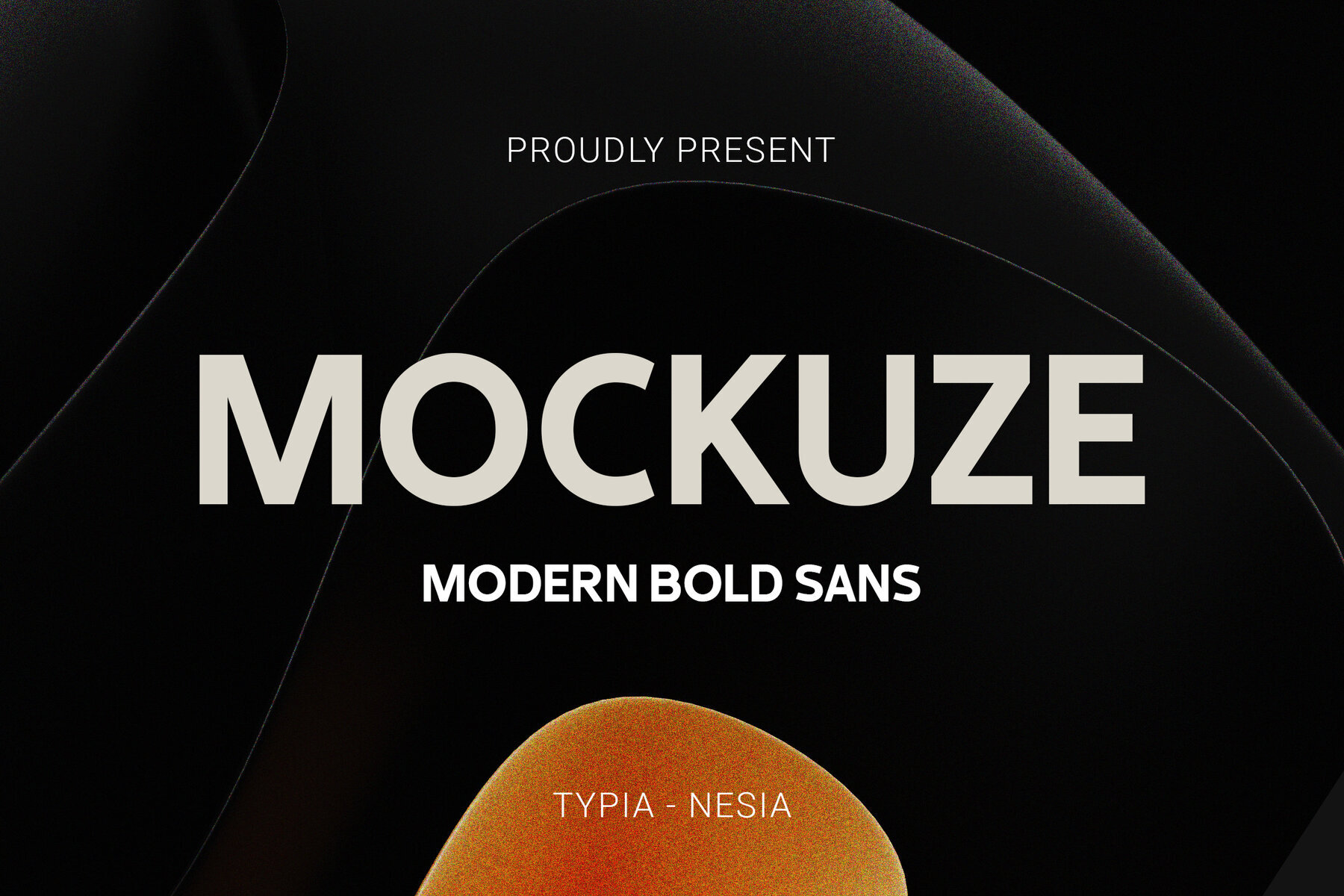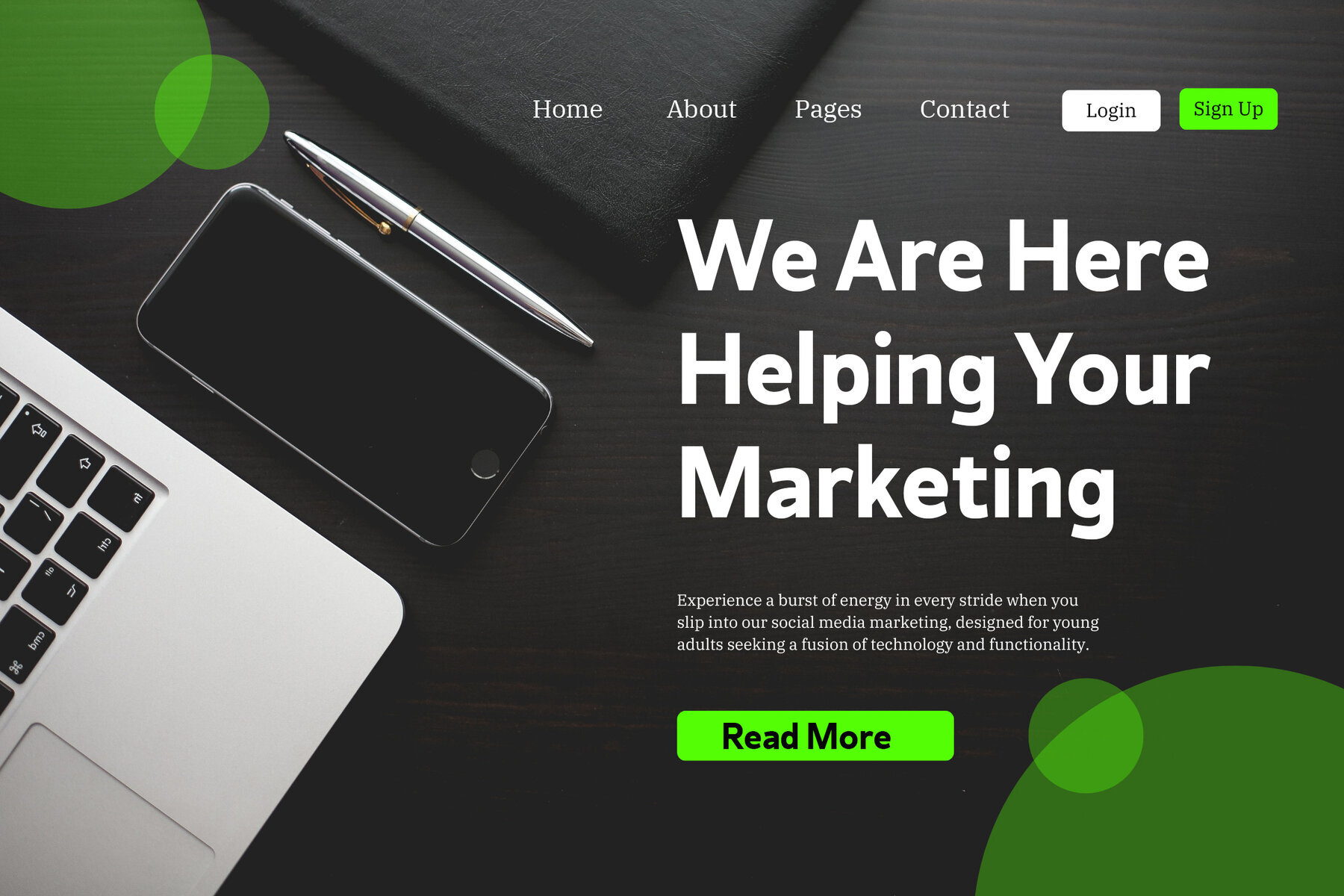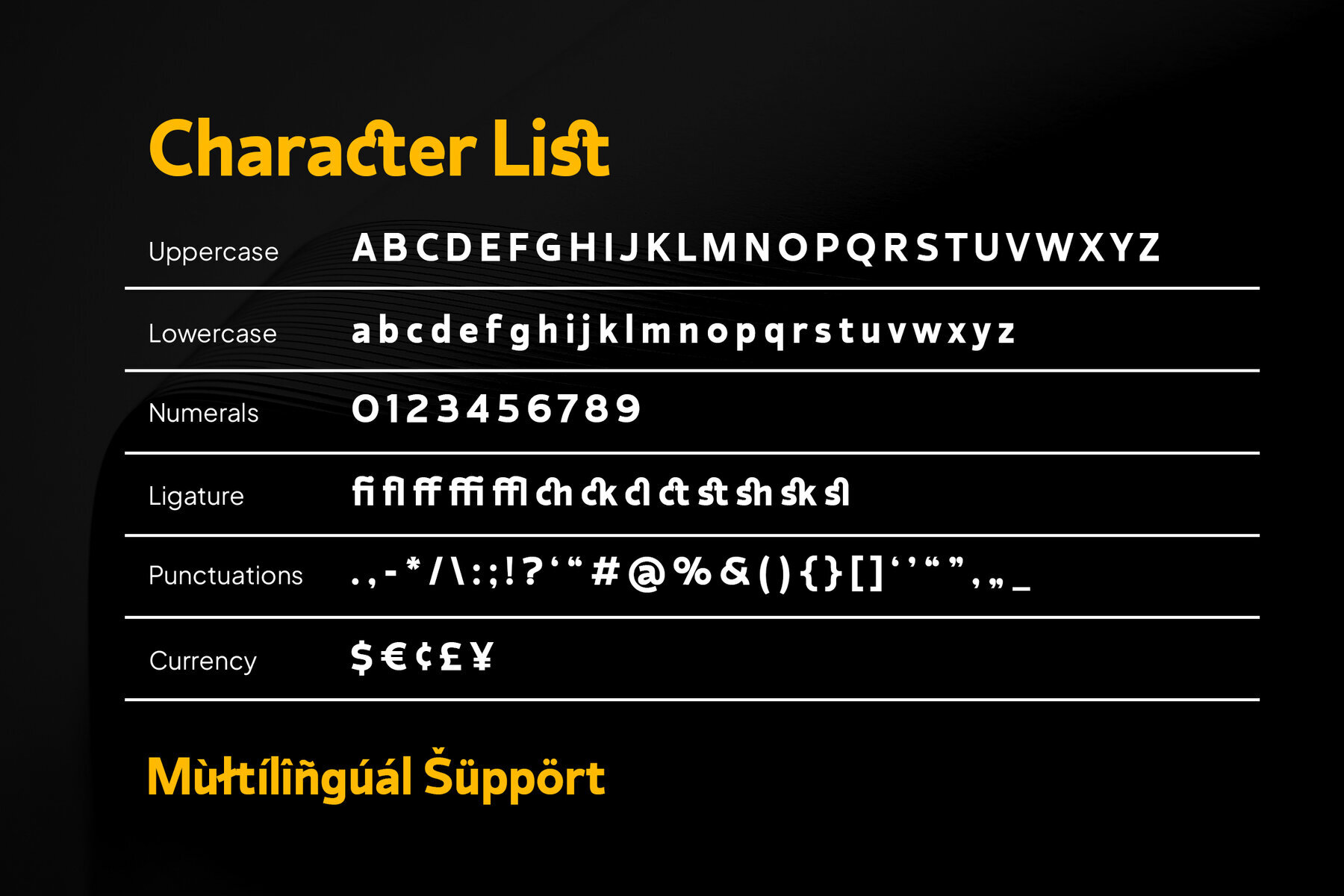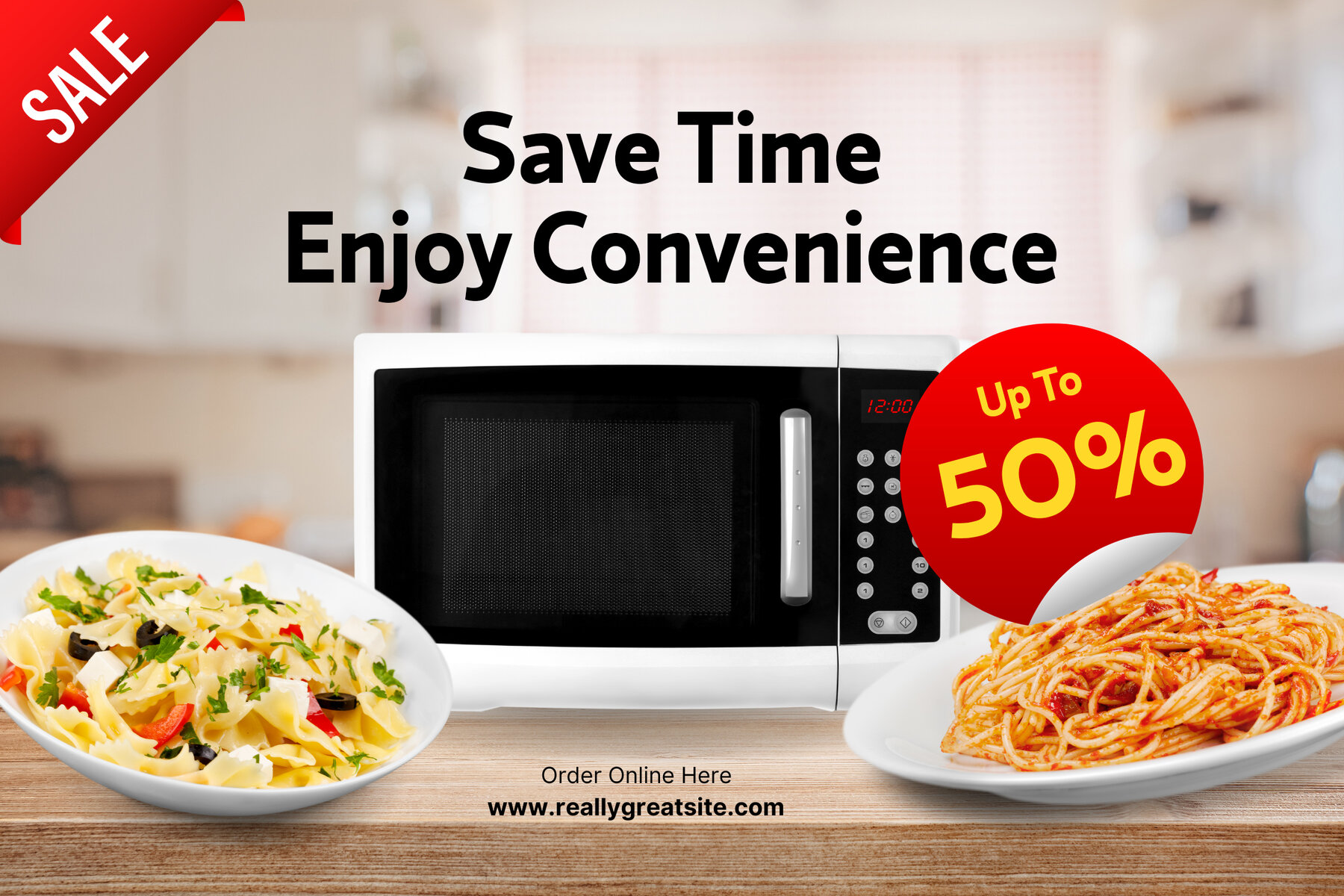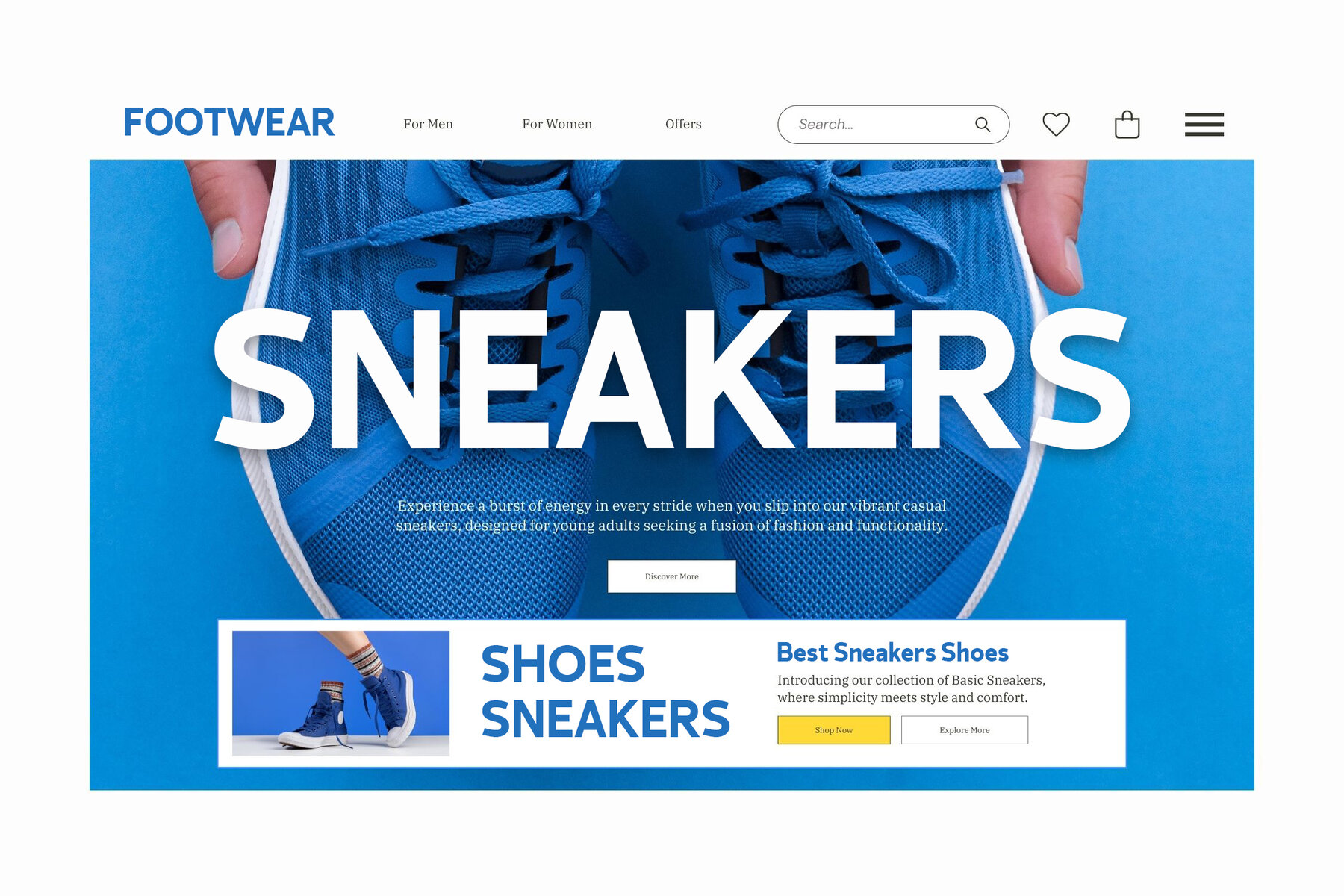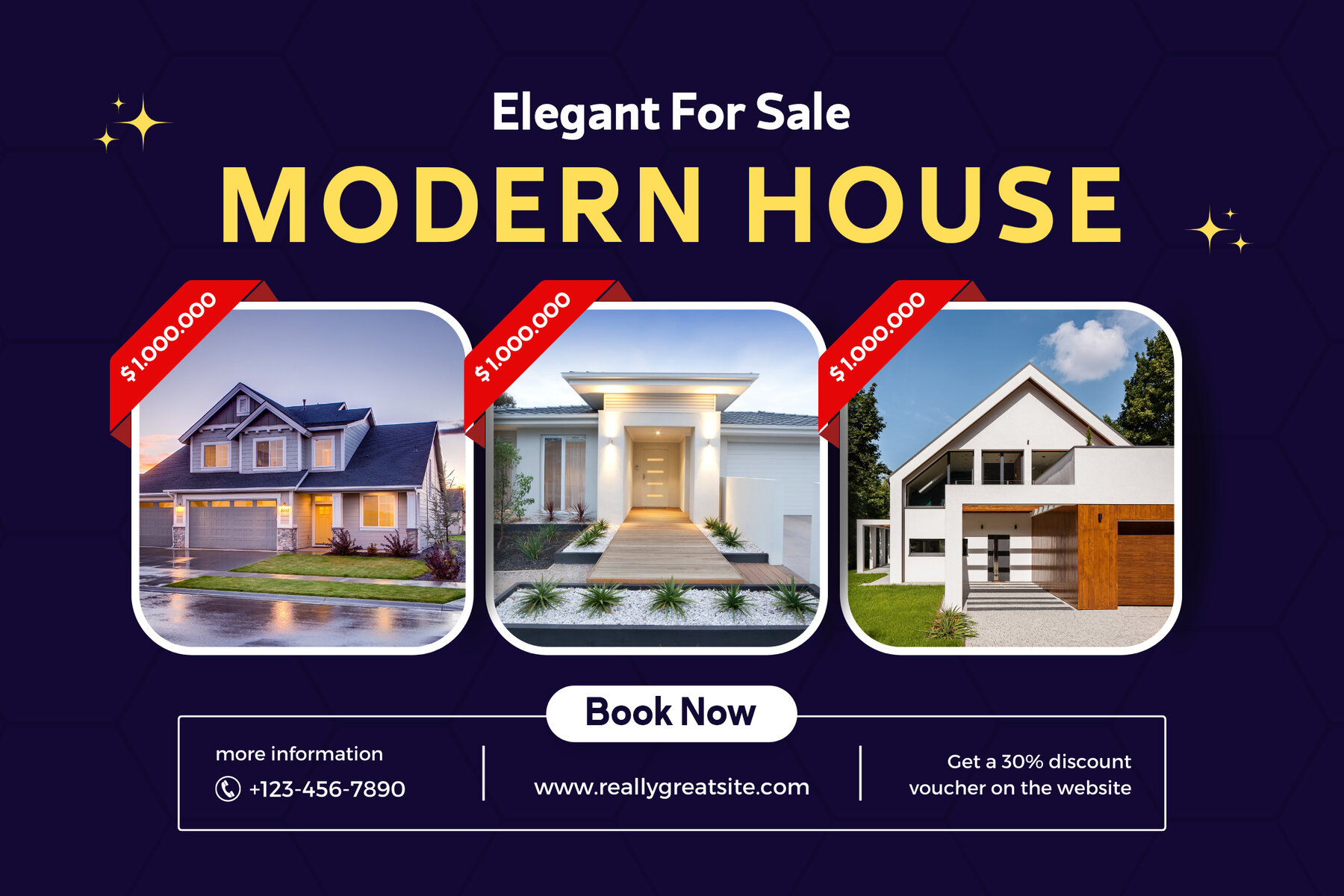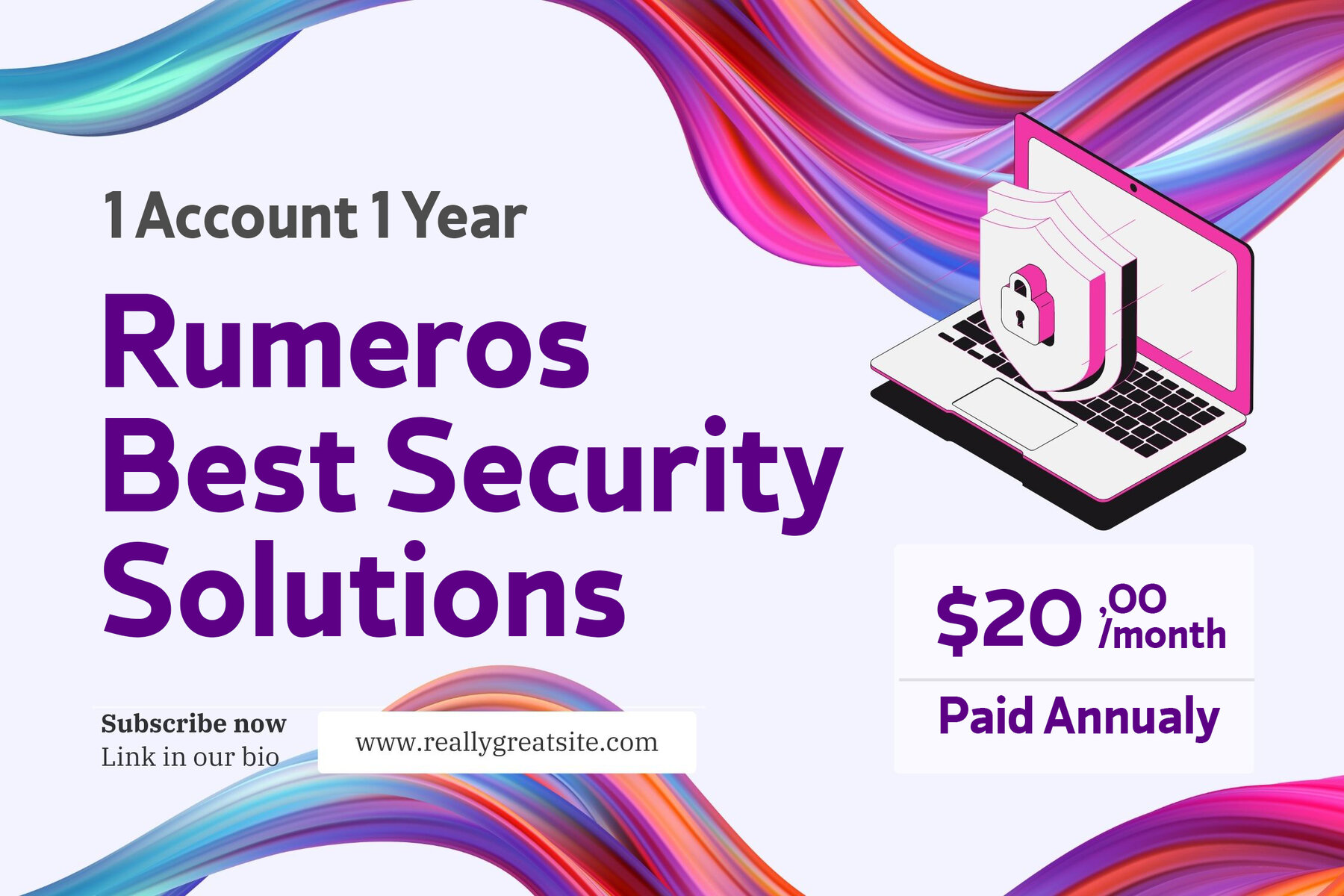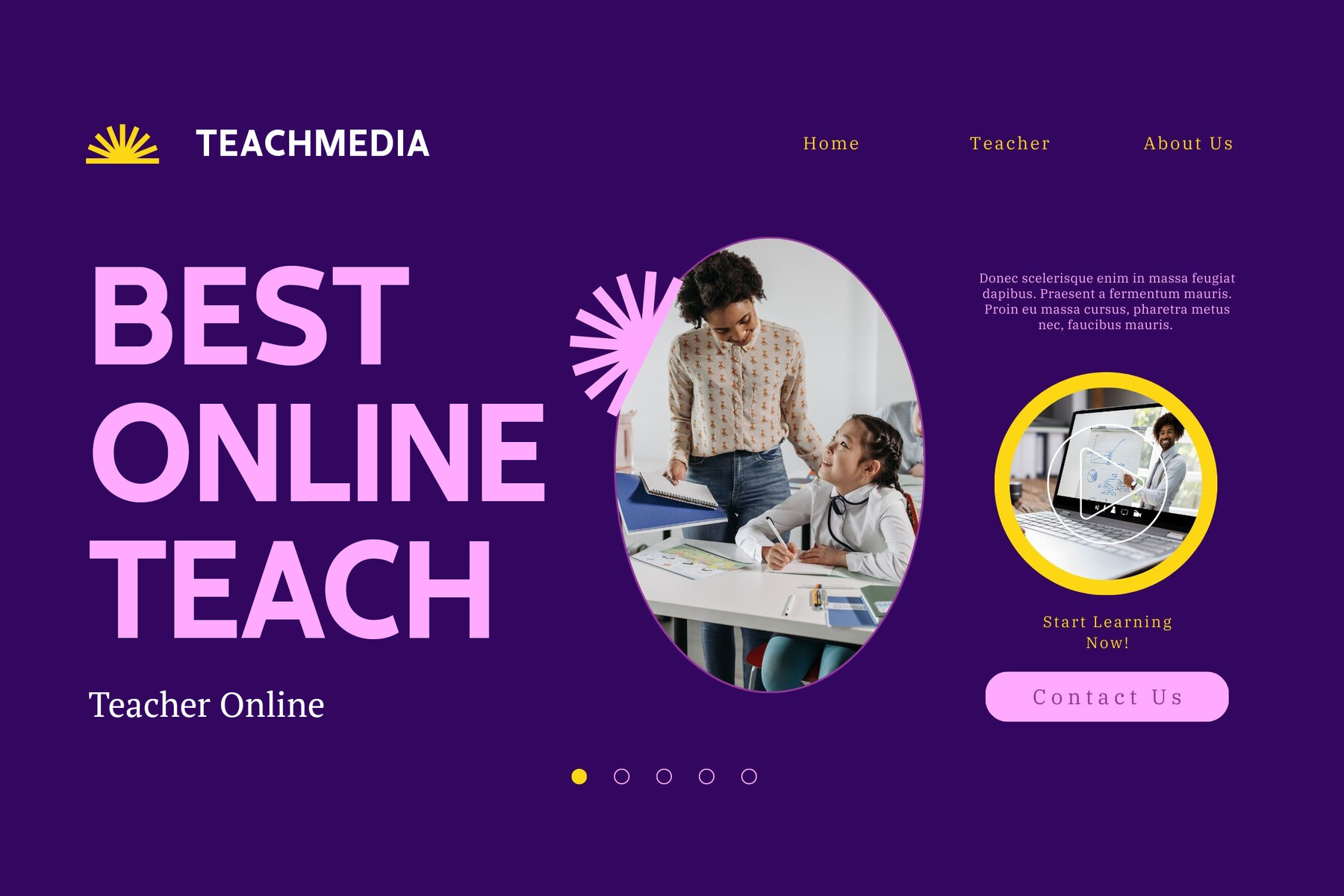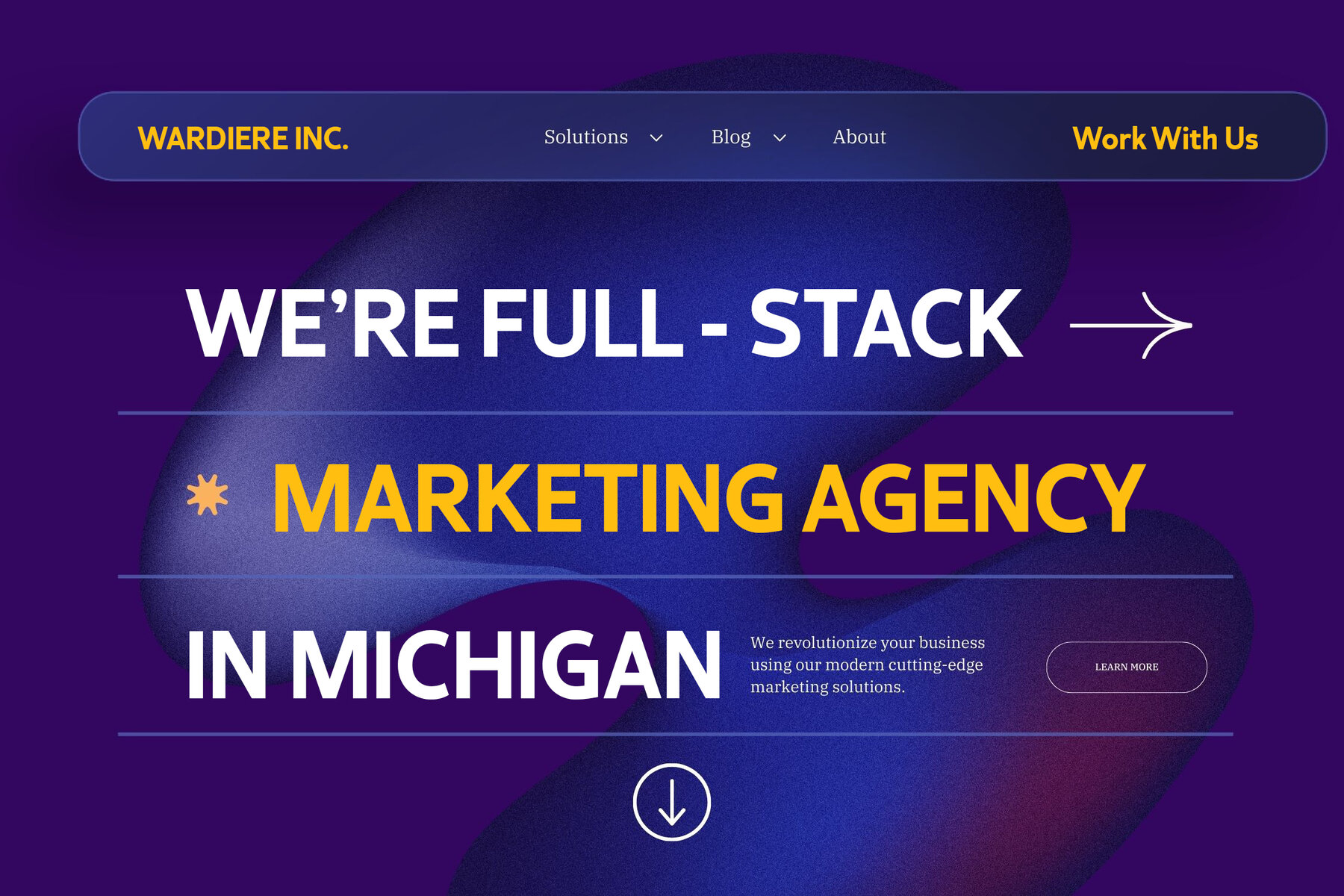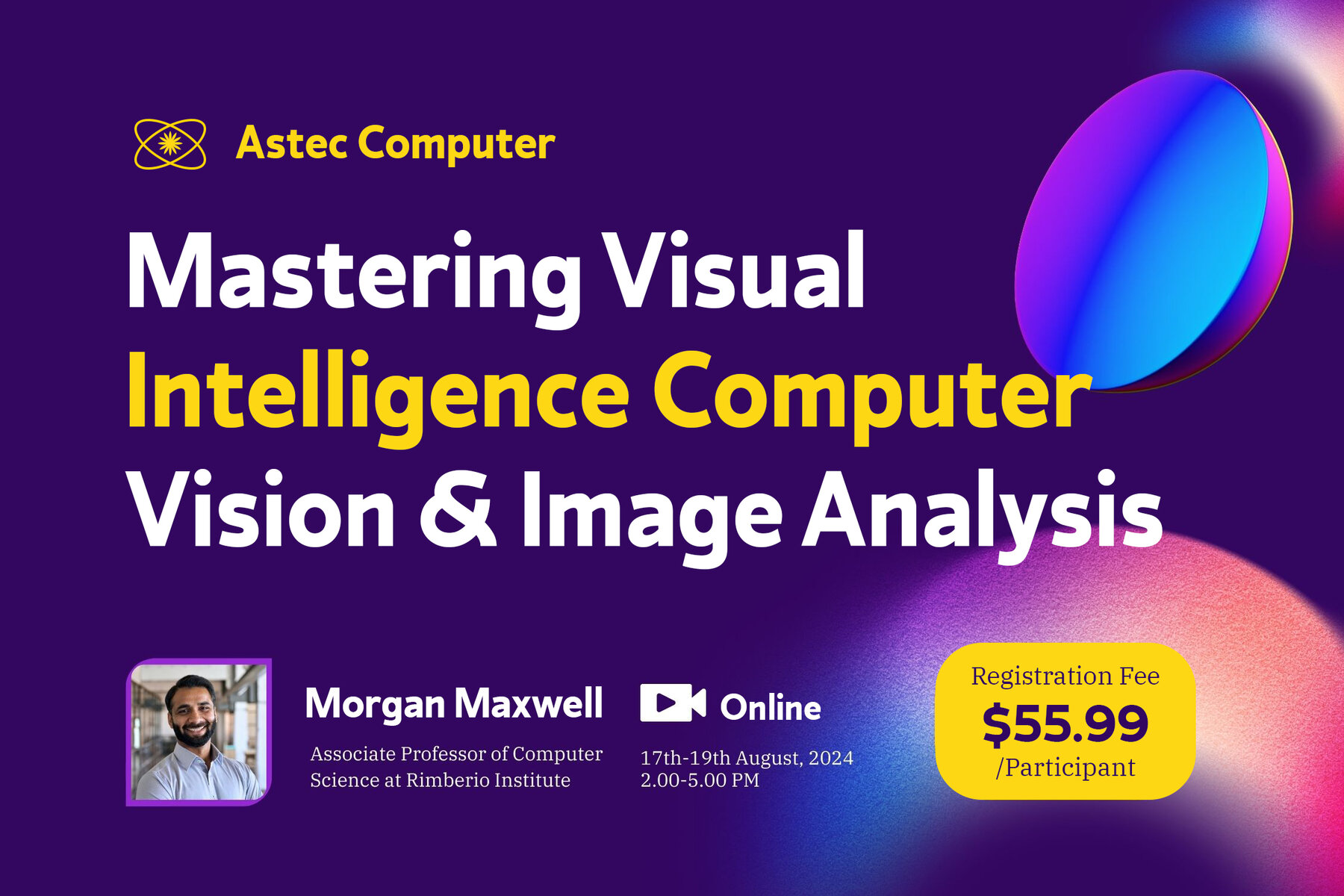
Mockuze Font
Mockuze Regular
Mockuze is a font that encapsulates a sleek, bold, and contemporary sans-serif style, specifically crafted for diverse design applications. Its standout feature includes the integration of ligatures, facilitating elegant and seamless typography. Our expertise lies in curating designs that emanate a modern, bold aesthetic, making it an excellent fit for branding, advertising, and various design projects seeking a distinctive typographic edge.